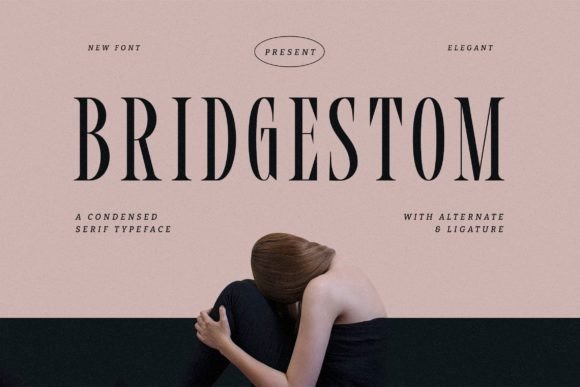
The Ultimate Guide to Bridgestom Font: Elevate Your Design with Elegance
Have you ever been in the middle of a design project, and suddenly, you’re stuck on finding the perfect font? I recall a recent experience where I was working on a luxury brand’s logo design, and I just couldn’t seem to find a font that exuded the right amount of sophistication and elegance. That’s when I stumbled upon the Bridgestom font, and it completely transformed my design. In this article, we’ll dive into the world of Bridgestom, exploring its features, uses, and everything in between.
A Personal Review of Bridgestom Font
What I Love About Bridgestom ✨
• 💯 Condensed Serif Perfection: Bridgestom’s sleek and condensed serif design makes it perfect for luxury logos, branding, and editorial designs.
• 🎨 Versatile and Adaptable: This font is incredibly versatile, suitable for a wide range of projects, from fashion magazines to art gallery branding, and even home decor.
• 💻 Easy to Read: Despite its condensed design, Bridgestom remains highly legible, making it an excellent choice for body text and captions.
• 👍 High-Quality Craftsmanship: The font is meticulously crafted, with attention to detail and a clear understanding of typographic principles.
• ⚠️ Limited Free Characters: Some users might find the limited set of free characters a bit restrictive, but this can be easily resolved by exploring the font’s OpenType features.
• 🤔 May Require Additional Design Elements: Depending on the project, Bridgestom might require additional design elements to truly shine, such as ornate illustrations or subtle textures.
The Backstory of Bridgestom Font
Bridgestom font was designed with the intention of creating a typeface that exudes elegance and sophistication. The designer aimed to craft a font that would be perfect for luxury brands, high-end designs, and creative projects that require a touch of refinement. With its condensed serif design and attention to detail, Bridgestom has become a go-to font for designers seeking to elevate their designs.
What is the best use for Bridgestom font? Bridgestom font is perfect for luxury logos, branding, editorial designs, fashion magazines, art gallery branding, and more.
Is Bridgestom font suitable for body text? Yes, Bridgestom font is highly legible and can be used for body text, but it’s recommended to use a larger font size for optimal readability.
Is Bridgestom font available in different weights? Yes, Bridgestom font comes in various weights, allowing you to choose the perfect weight for your design needs.